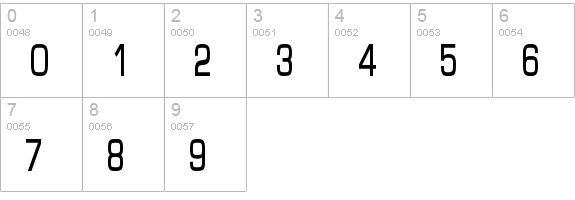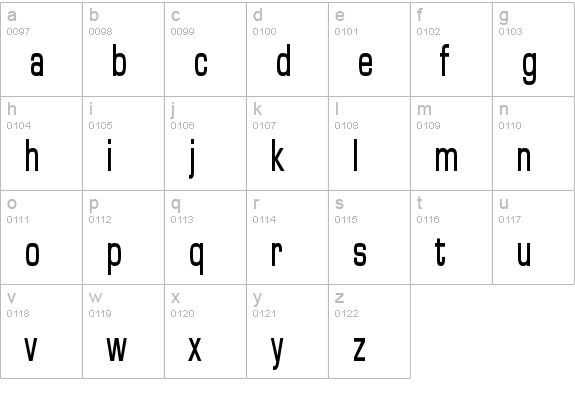
Eurasia Thin Bold is a delicate, low-contrast variant in the Eurasia typeface family \xE2\x80\x94 well suited to fashion editorial, minimal branding, and high-contrast display.
The Eurasia Thin Bold font is a sleek and modern typeface that exudes elegance and sophistication. Its bold yet thin strokes create a perfect balance between impact and subtlety, making it a versatile choice for a wide range of design projects. Whether you're designing a sleek logo, a stylish poster, or a contemporary website, Eurasia Thin Bold font is sure to make a statement. And the best part? This stunning font is available for free download at FontsMarket.com. Don't miss out on the opportunity to enhance your design projects with the timeless beauty of Eurasia Thin Bold font. Download it now and elevate your creations to the next level.